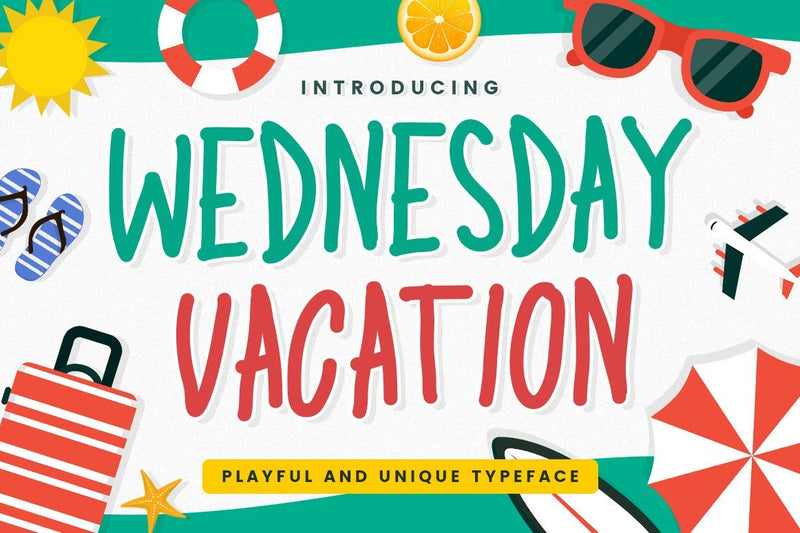
Wednesday Vacation - Playful Display Font
Wednesday Vacation is a playful and unique display font. This font will easily add a fun touch to any craft!
Wednesday Vacation would be perfect for logos & branding, photography, watermark, social media posts, advertisements, invitation, product designs, label, stationery, product packaging, special events or anything that need handwriting taste.